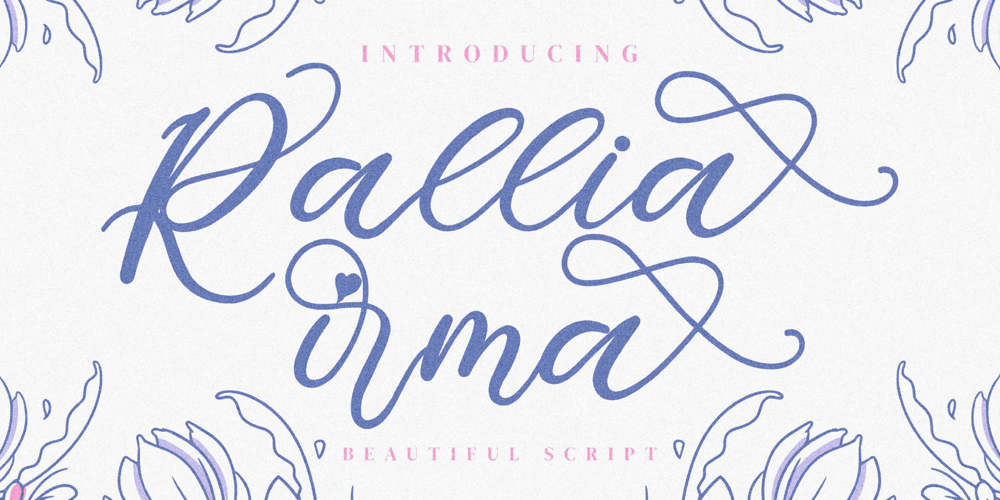
Rallia irma Font Family was designed by Dimas Alif Maulana and published by Integritype. Rallia irma contains 1 styles and family package options. Rallia Irma is a romantic and sweet calligraphy typeface with characters that dance along the baseline. It will add a luxury spark to any design project that you wish to create! This font is PUA encoded which means you can access all of the amazing glyphs and ligatures with ease!